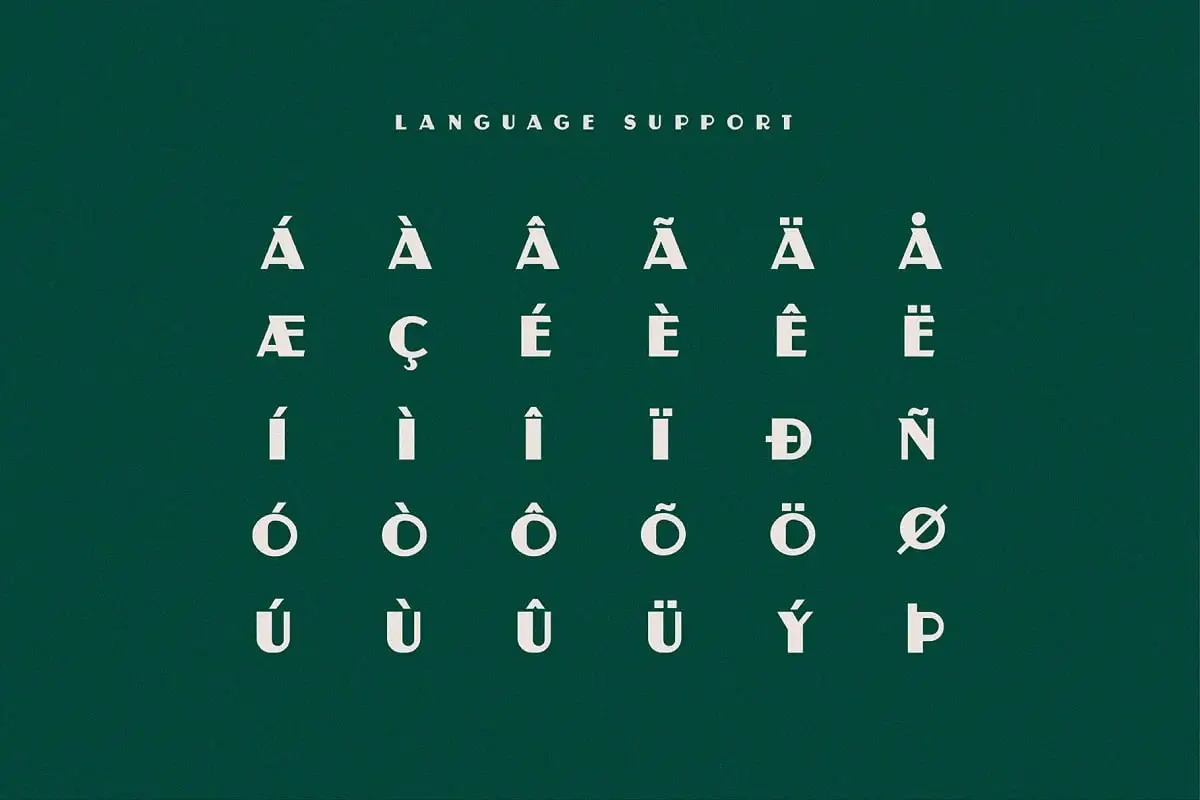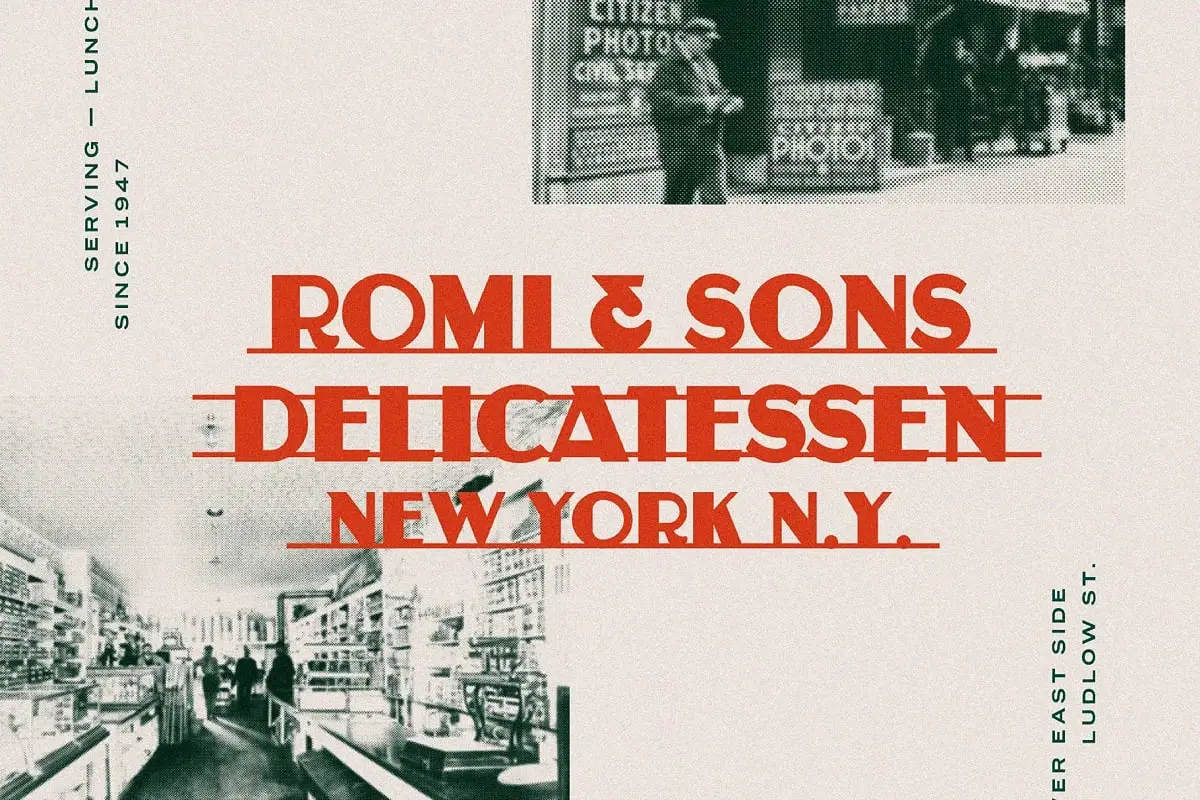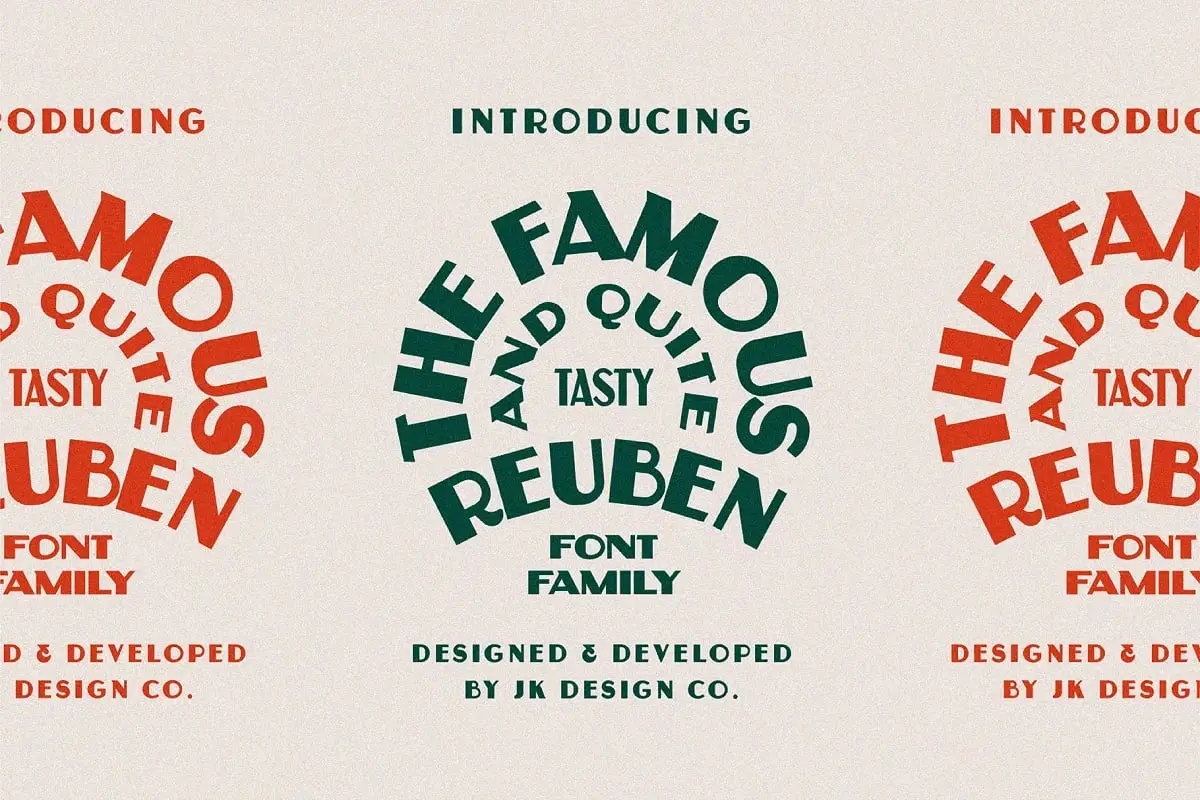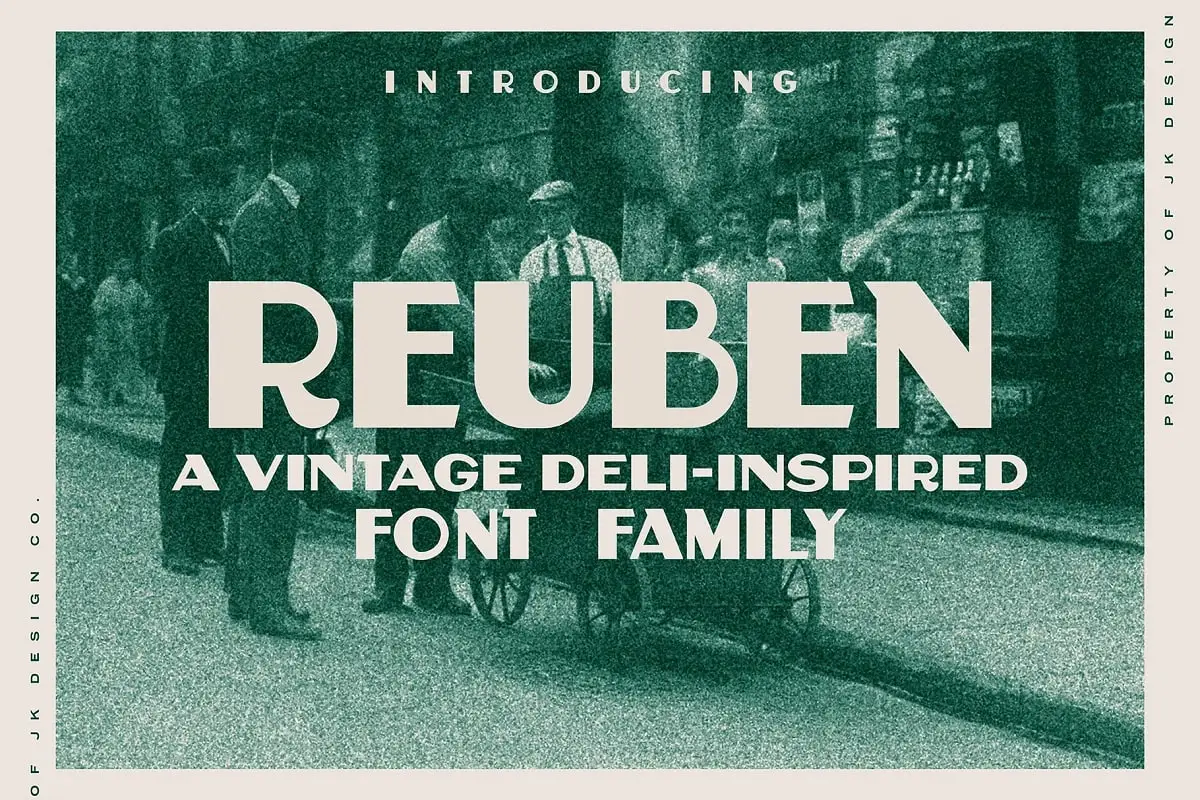
Reuben-A Vintage Display Font
Introducing Reuben-A, a vintage display font that captures the charm of classic typography. This font features a unique blend of elegant curves and bold lines, making it perfect for a variety of design projects.
• Stylish vintage design
• Weight: Regular, Bold
• Ideal for branding, logos, and packaging
• Great for web design and print materials
• Perfect for creating eye-catching headlines and posters